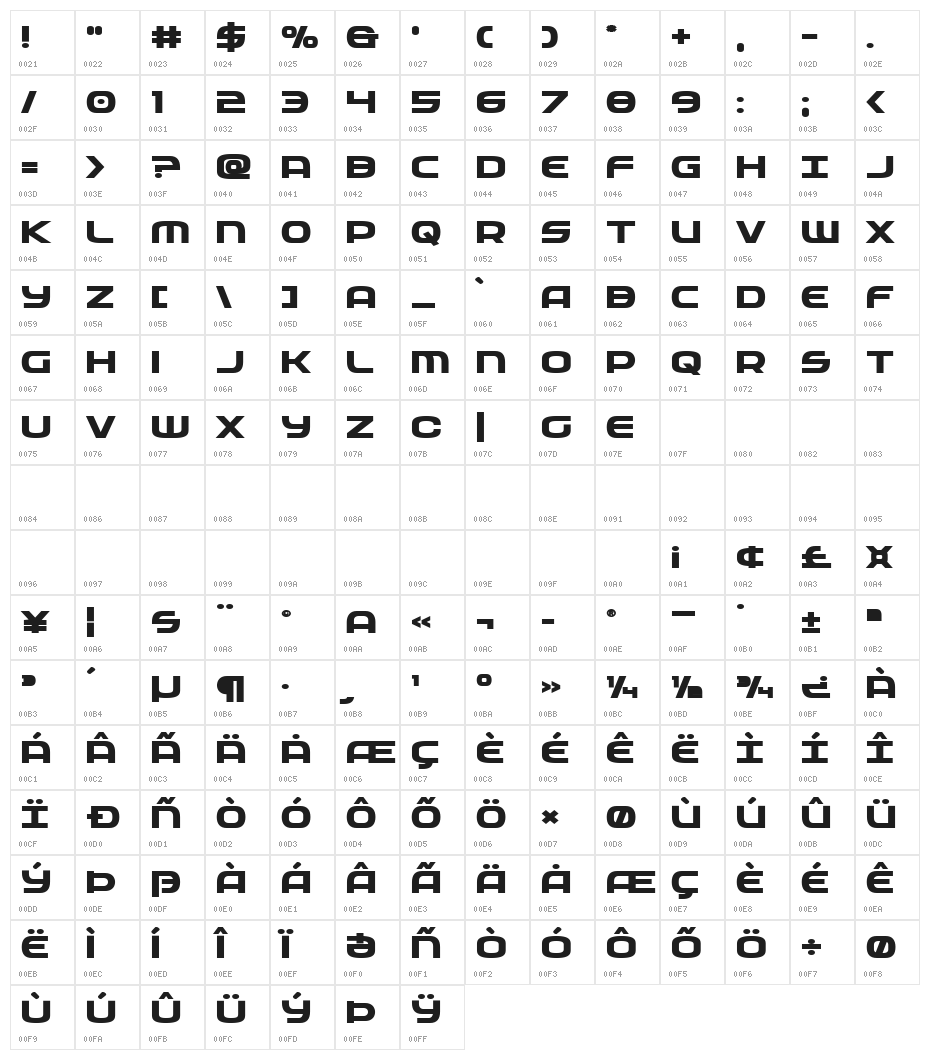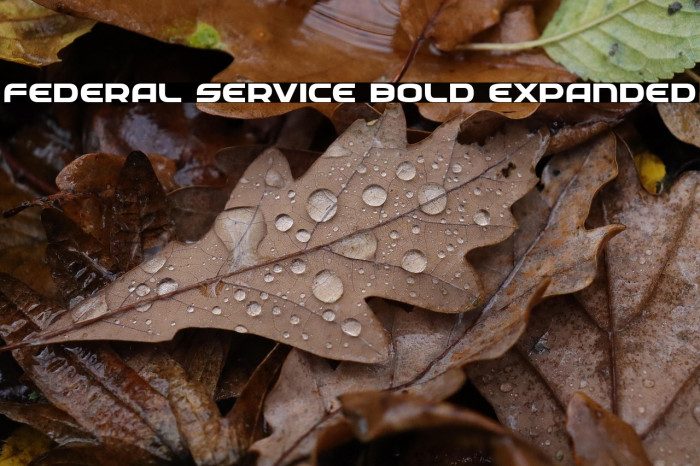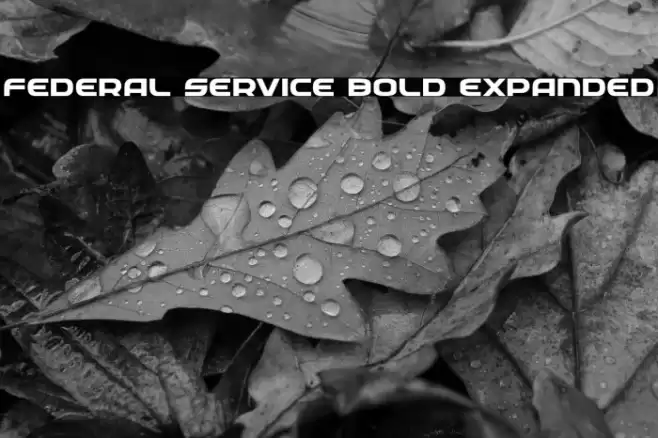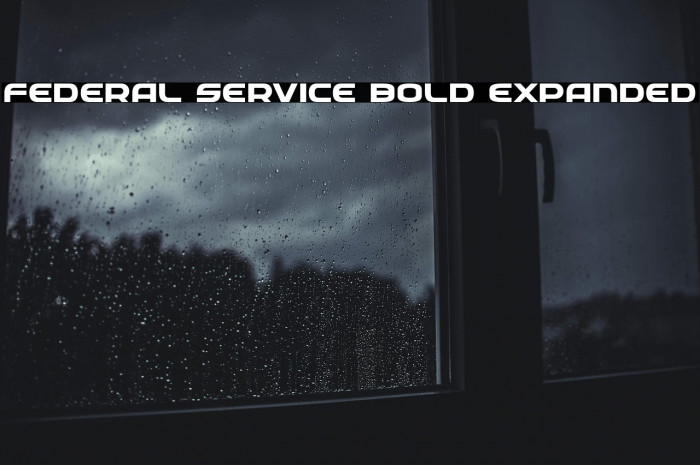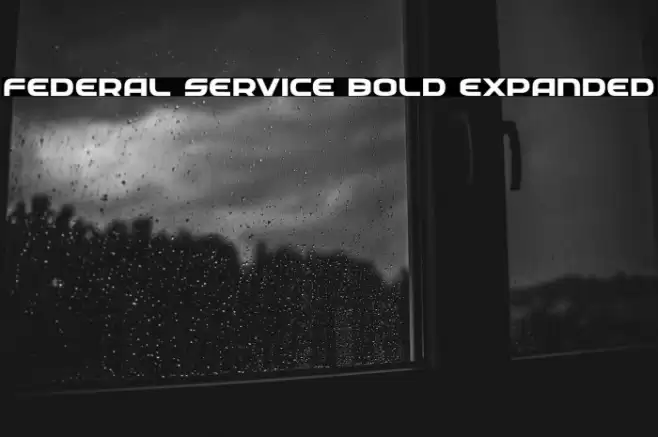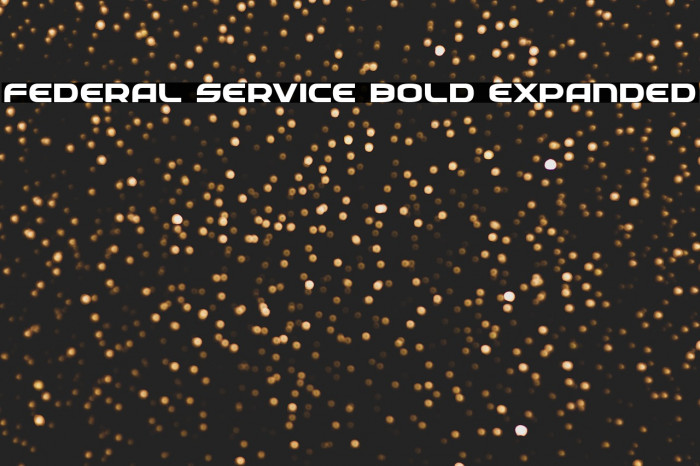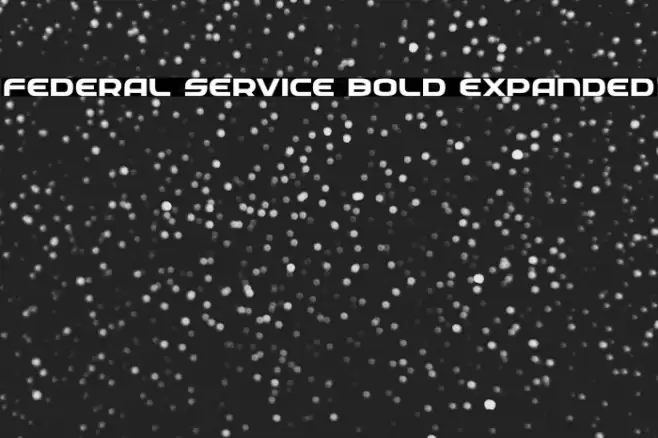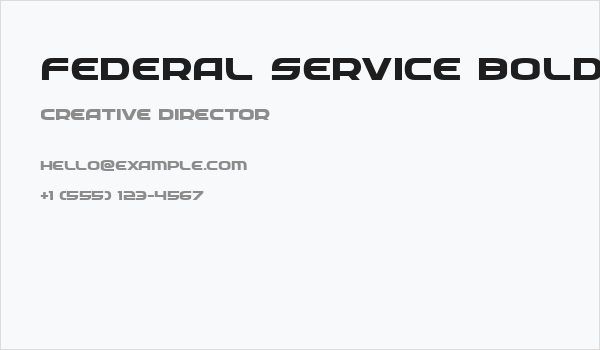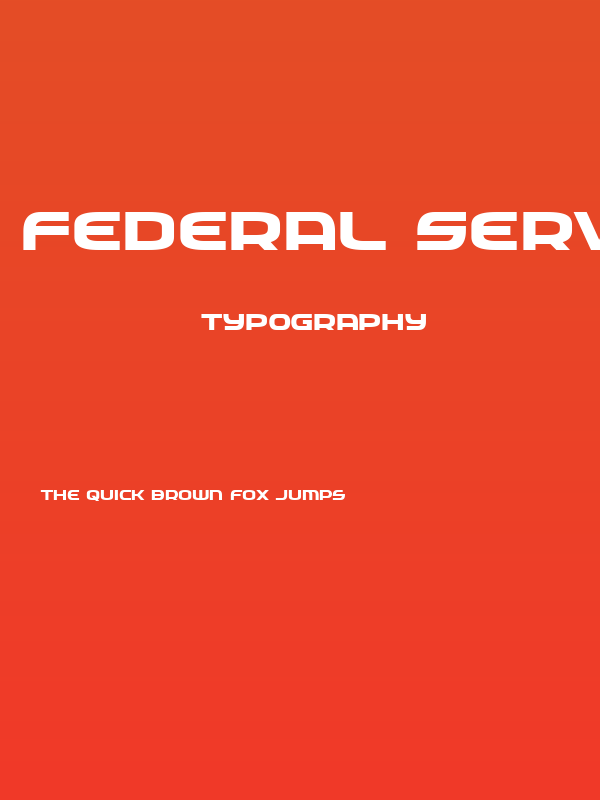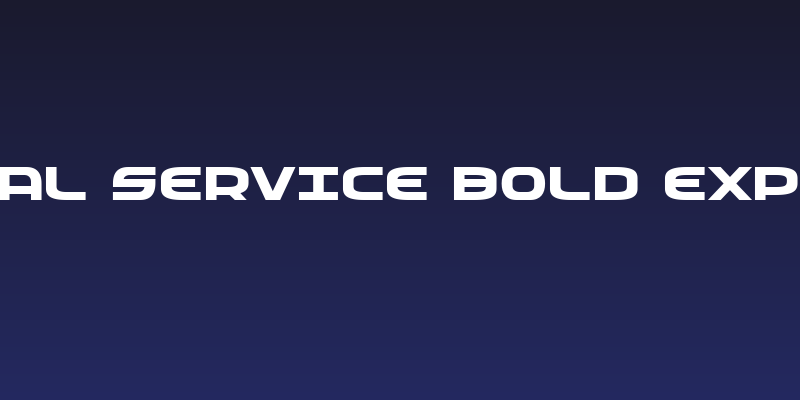
Federal Service Bold Expanded Font
Federal Service Bold Expanded Description
This font features a bold and expanded style with a modern, futuristic aesthetic. The characters are uniformly wide, with a geometric structure that emphasizes straight lines and sharp angles. The uppercase letters are particularly striking, with a strong presence that commands attention. The lowercase letters maintain the same boldness, ensuring consistency across text. Numbers and special characters are designed with the same attention to detail, making them easily legible and visually appealing. The overall design is clean and minimalistic, suitable for making a strong visual impact.
Proposed ProjectsIdeal for branding, headlines, posters, and any project requiring a strong, modern typeface.